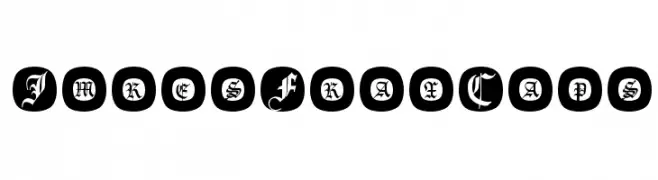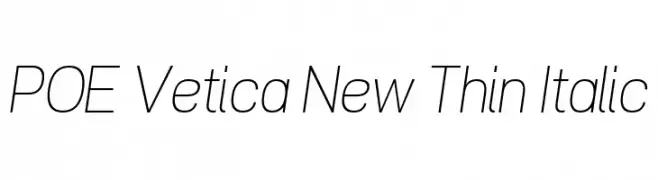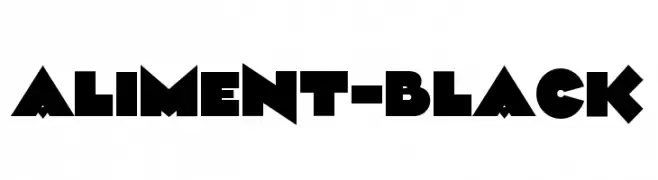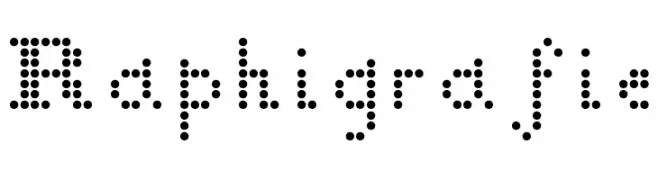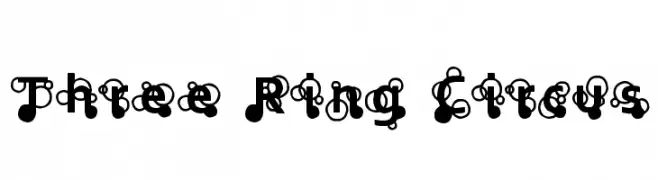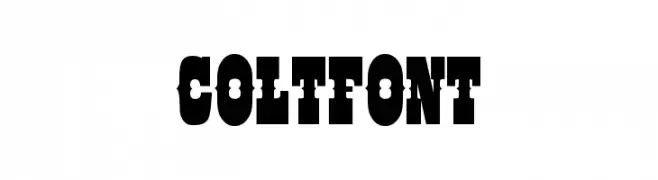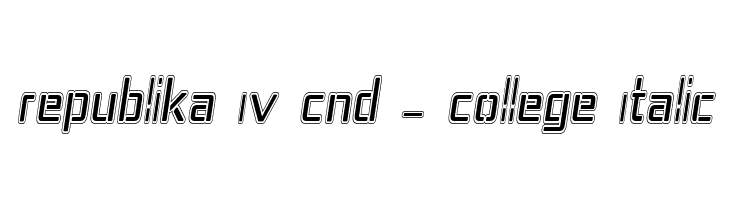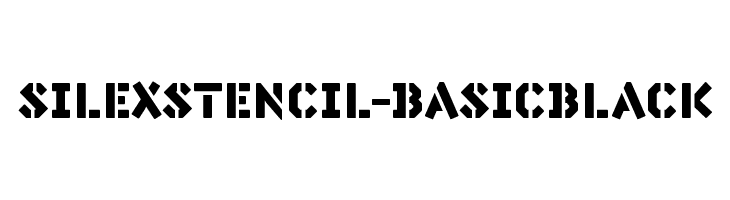
A bold blackletter font with ornate Gothic styling and high contrast.
A bold, textured font with a dynamic, decorative style.
A playful, hand-drawn font with rounded edges and a friendly style.
A thin, italicized font with a modern and elegant style.
A bold, inline decorative font with modern flair and striking visual impact.
A bold, geometric font with sharp edges and unique cutouts.
A playful, decorative font with circular motifs, ideal for eye-catching designs.
A bold, vintage-style font with thick, block-like characters.